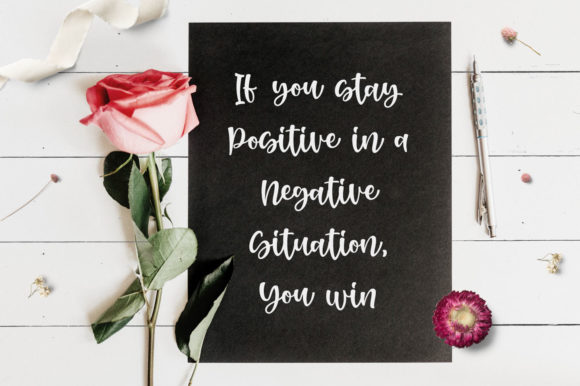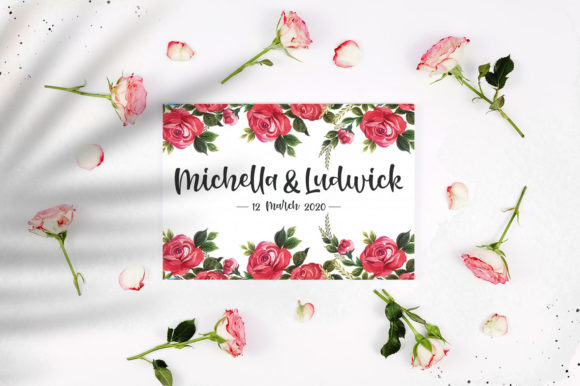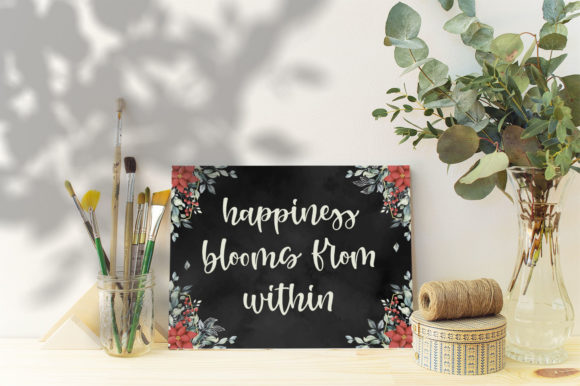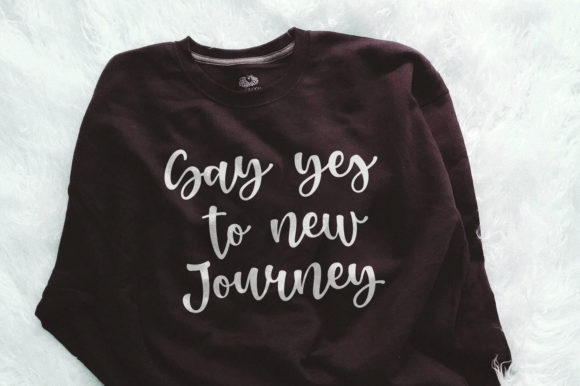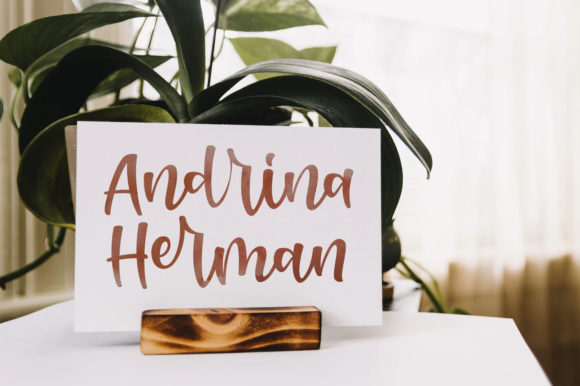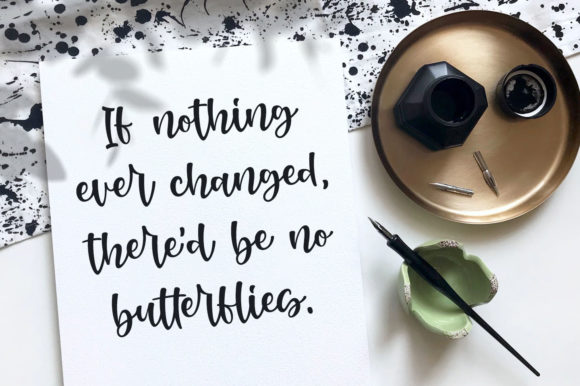
Introduction to Renatta Walters Font
There’s nothing quite like the feeling of stumbling upon the perfect font for a creative project. The spark of inspiration, the rush of excitement, and the knowledge that your design is about to take on a whole new level of elegance – that’s what happens when you discover the Renatta Walters Font.
With its elegant and sweet script, this font is the perfect addition to any design project that needs a touch of romance. Whether you’re creating a wedding invitation, a birthday card, or a logo for a boutique business, Renatta Walters Font is sure to add that special something that makes your design stand out. And the best part? It’s available for free download, complete with a transparent background and high-quality design that will make your project shine.
Key Features of Renatta Walters Font
- Unique, elegant script font perfect for creative projects requiring a touch of sophistication.
- High-quality font files with transparent background, allowing for seamless integration with any design resource.
- Designed to be versatile, suitable for a range of creative projects, from wedding invitations to branding materials.
- Unique characteristics: cursive, handwritten, and elegant, making it perfect for designers seeking a high-end look.
Honest Review: Renatta Walters Font
I recently stumbled upon the Renatta Walters Font while searching for a free download to use in my latest creative project. I was immediately drawn to its elegant and sophisticated design, which I believe would be perfect for a high-end brand or design resource.
- ✨ Unique and creative design that stands out from the crowd
- ✨ High quality and crisp lines, making it perfect for print or digital use
- ✨ Includes a transparent background, giving me flexibility when designing
- ⚠️ Limited font styles and weights available (only 2 weights and 2 styles)
- ⚠️ No extended character set or language support (primarily designed for English)
Overall, I’m impressed with the Renatta Walters Font and would recommend it for any creative project that requires a touch of sophistication and elegance. While it has its limitations, I believe it’s a great design resource for those looking for a high-quality, free download.
Tips for Getting the Most Out of Renatta Walters Font
To maximize the impact of the Renatta Walters Font, use it in conjunction with other high-quality design elements and pay attention to typography hierarchy and balance.
The Renatta Walters Font is ideal for creative projects such as wedding invitations, branding materials, and editorial designs, where a touch of sophistication and elegance is required.
Q: Is the Renatta Walters Font suitable for high-resolution printing?
Yes, the Renatta Walters Font is designed to be high-quality and suitable for high-resolution printing. The font has been optimized for use in a variety of printing contexts, including business cards, brochures, and posters. However, please note that the final print quality will depend on the specific printing settings and equipment used.